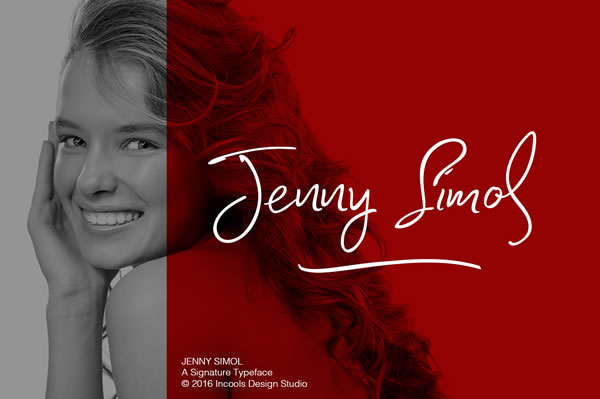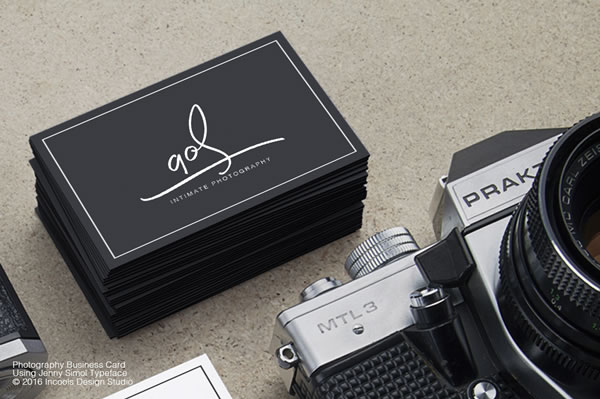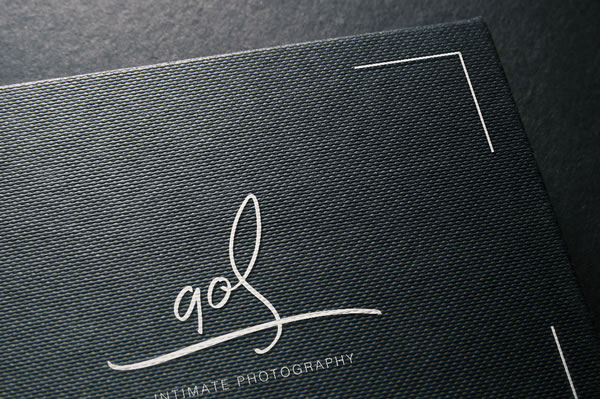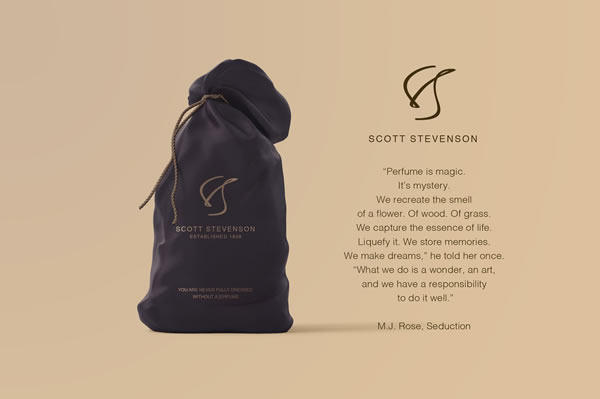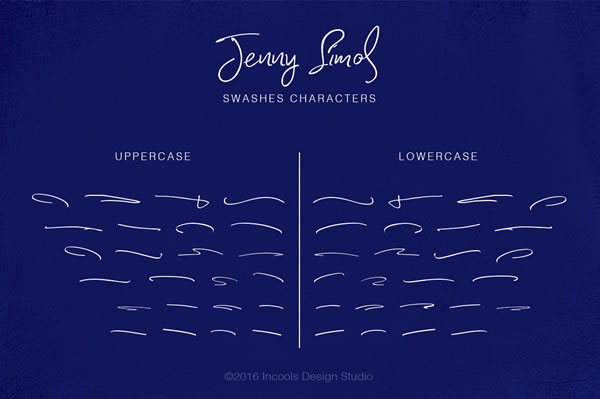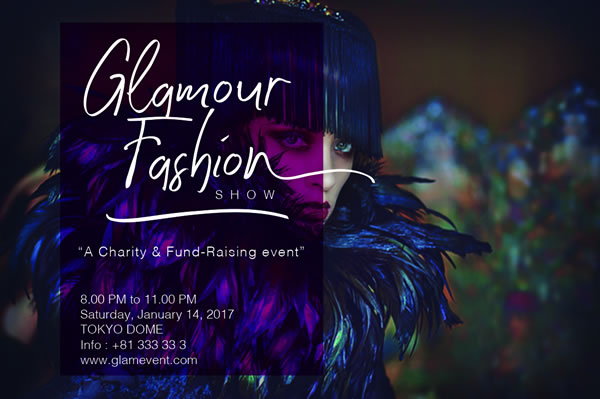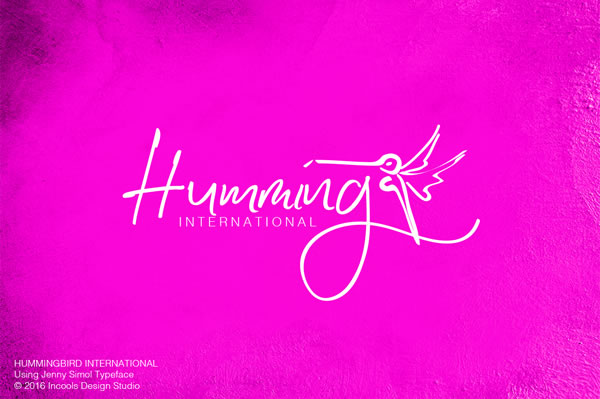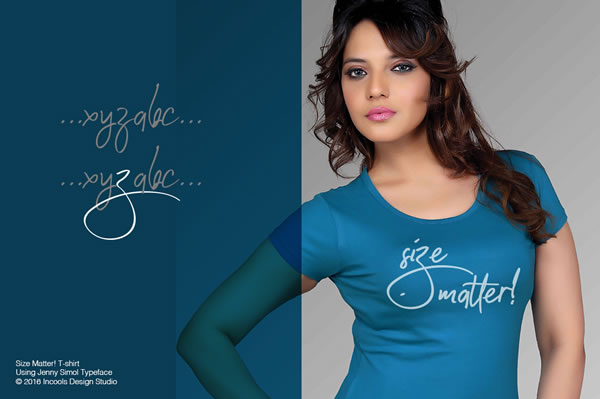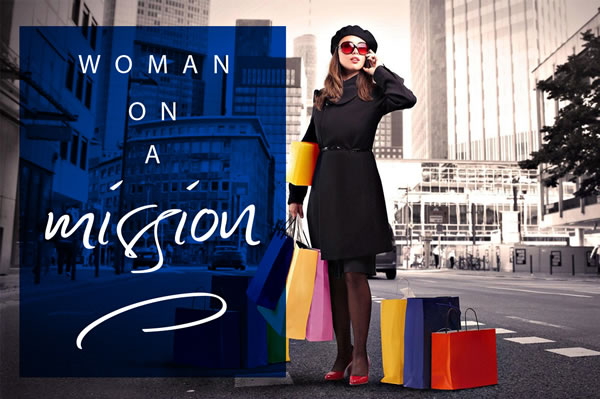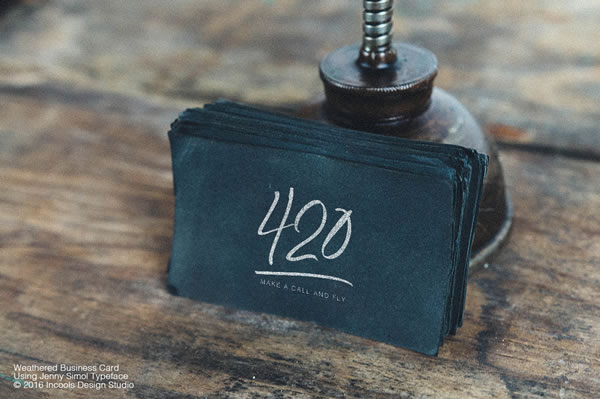
Jenny Simol Font
About Jenny Simol Font
Jenny Simol is a natural handwritten script font created by the Incools Design Studio.
This fluid font comes with 2 fonts:
Jenny Simol Regular
Jenny Simol Swashes